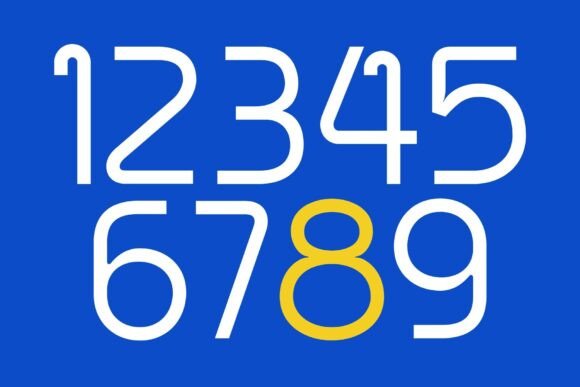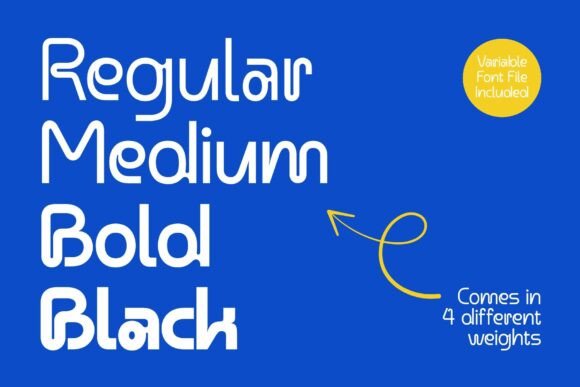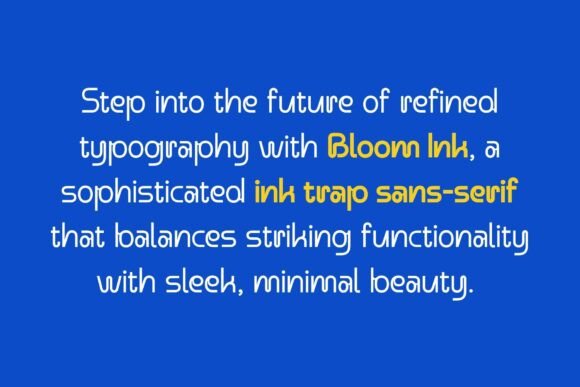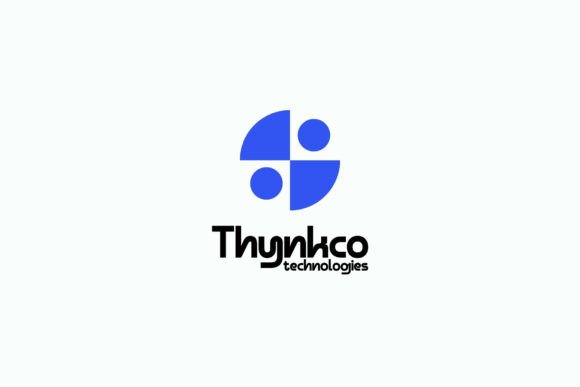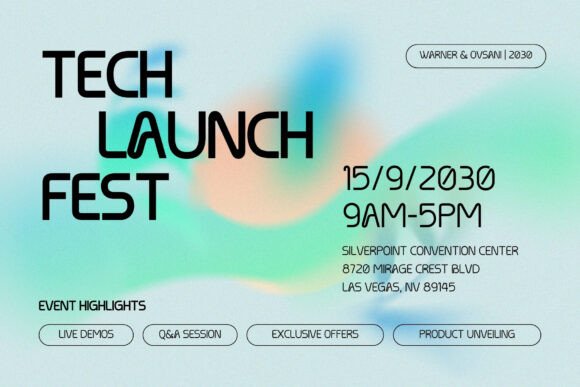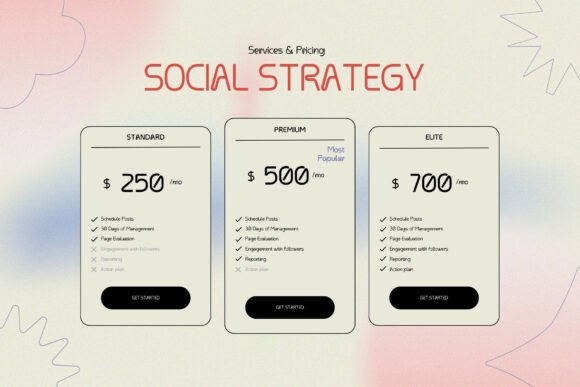
The Perfect Typographic Match for Your Next Project
Have you ever stared at a blank canvas, trying to conjure up the perfect font to bring your design to life? The blank page can be intimidating, but what if you had the perfect tool at your fingertips? Enter the Bloomink Font, a sophisticated ink-trap sans-serif designed to elevate your typography game.
As a designer, you know the importance of a well-crafted typeface. Bloomink Font is more than just a font; it’s a statement of precision, clarity, and elegance. With four versatile weights and a powerful variable font file, you have full control over visual rhythm and tone. Whether you’re crafting clean editorial layouts, stylish branding, or high-end packaging, this typeface adapts effortlessly to your vision.
Bloomink Font Key Features
- Font Family: Bloomink is a unique, modern sans-serif font family designed for digital use.
- Font Sizes: Bloomink is available in 6 font weights: Light, Regular, Medium, Bold, Extra Bold, and Black.
- Resolution: Optimized for high-resolution displays, Bloomink is suitable for use on retina screens and other high-resolution devices.
- Language Support: Bloomink supports a wide range of languages, including Latin, Cyrillic, and Greek scripts.
- Unique Characteristics: Bloomink features a distinctive, hand-crafted feel with subtle irregularities and nuances that add to its charm and personality.
Bloomink Font Review
I recently had the chance to work with the Bloomink font, and I must say it’s a unique addition to any design project. ✨ Here are some of its standout features:
- Expressive curves and rounded edges that add a touch of elegance to any text.
- Wide range of font weights, from light to bold, giving you flexibility in your design choices.
- Support for multiple languages, making it a great option for international projects.
However, there are some limitations to keep in mind:
- ⚠️ Some characters may appear slightly inconsistent in terms of line width, which can affect readability.
- ⚠️ Limited support for certain font styles, such as italic and bold italic, which may require additional workarounds.
Overall, I’d say the Bloomink font is a great choice for designers looking to add a touch of sophistication to their projects. While it may have some limitations, its unique design and wide range of font weights make it a valuable addition to any design toolkit.
Bloomink font is ideal for:
- Creating elegant and sophisticated designs.
- Adding a touch of whimsy and playfulness to your designs.
- Designing wedding invitations, greeting cards, and other special occasion materials.
Tips: Experiment with different font combinations to create unique and visually appealing designs.
Alternatives to Bloomink Font
Great Vibes is a modern, elegant script font suitable for creating a professional and sophisticated look. It’s ideal for use in branding, advertising, and editorial designs where a touch of elegance is required.
Compared to Bloomink Font, Great Vibes has a more refined and sophisticated feel, making it suitable for high-end designs. While Bloomink Font has a more playful and casual tone, Great Vibes is more formal and polished.
Lobster is a popular, cursive font that’s perfect for creating a fun and playful atmosphere. It’s commonly used in social media, web design, and marketing materials where a lighthearted tone is desired.
Compared to Bloomink Font, Lobster has a more casual and laid-back feel. While Bloomink Font has a unique, handwritten quality, Lobster is more uniform and easy to read.
Alex Brush is a beautiful, calligraphic font that’s ideal for use in luxury branding, invitations, and other high-end designs where a touch of sophistication is required.
Compared to Bloomink Font, Alex Brush has a more refined and elegant feel. While Bloomink Font has a more playful and casual tone, Alex Brush is more formal and polished.